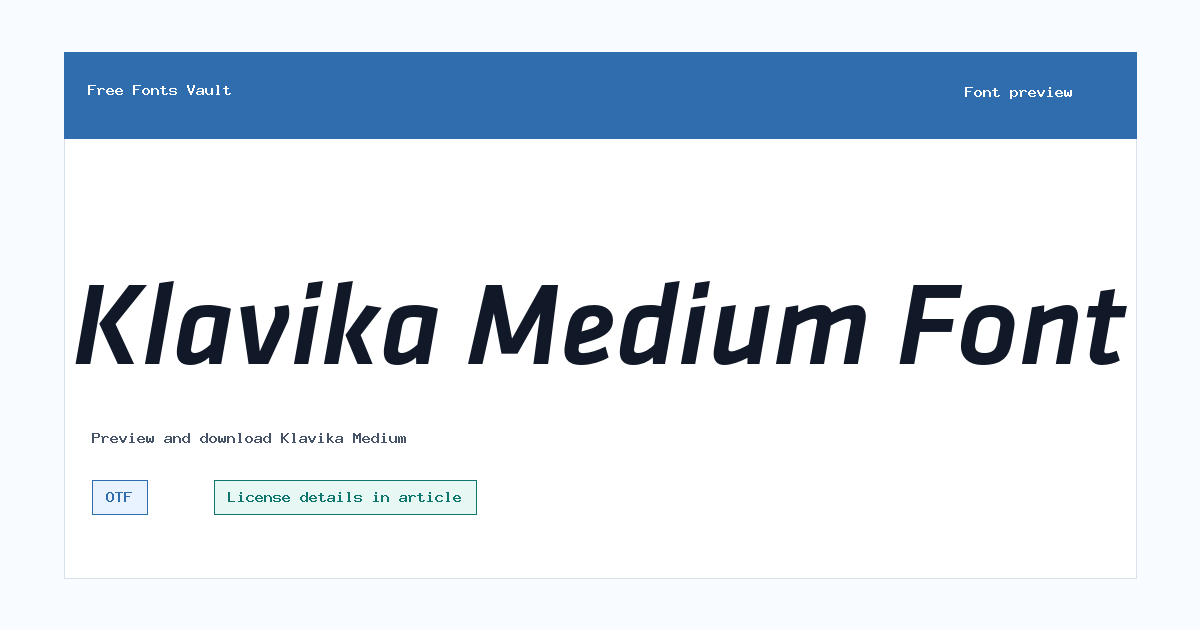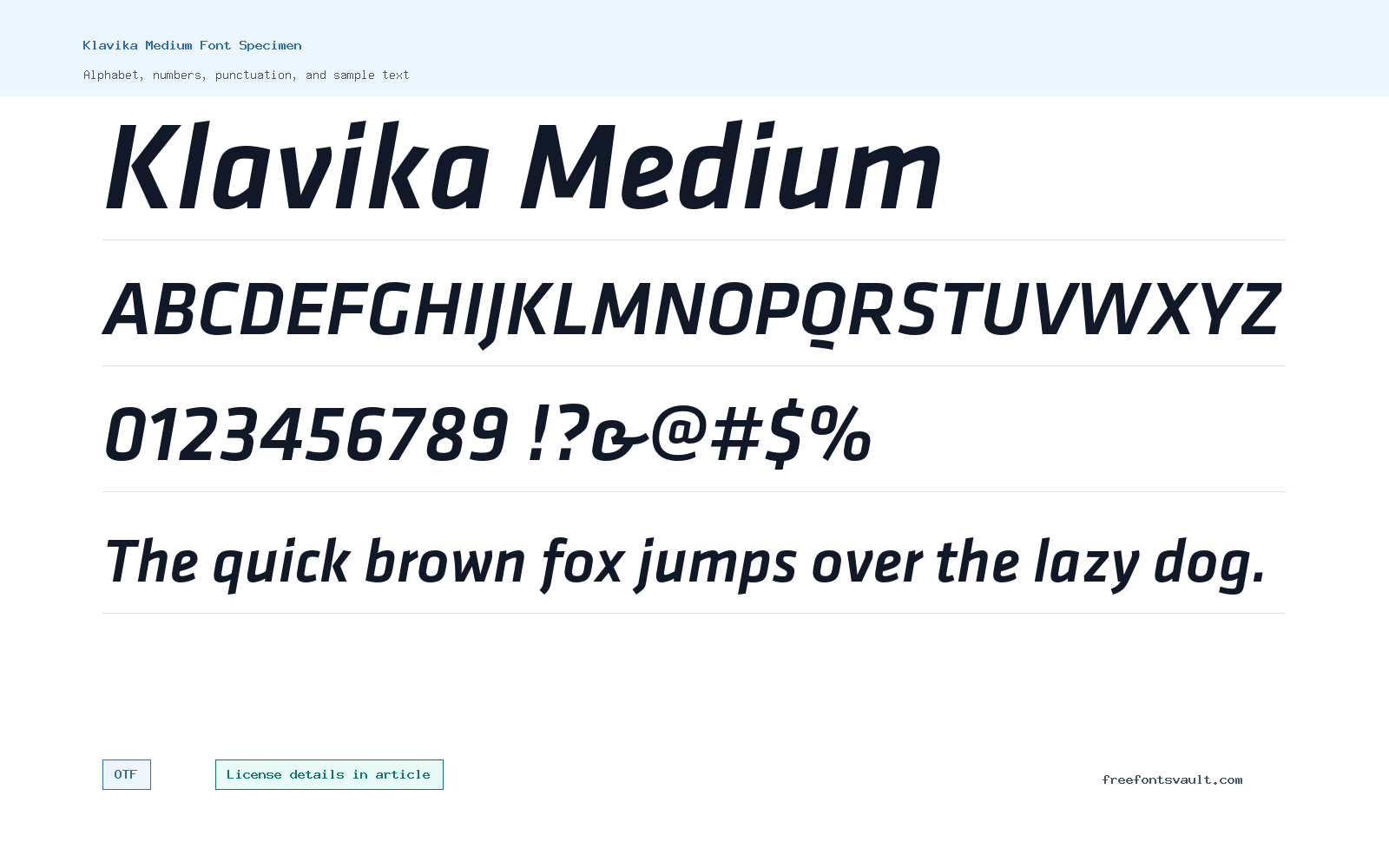
Klavika Medium
- Designer Process Type Foundry
- Foundry Process Type Foundry
Klavika Medium font.
Klavika Medium is listed here as a medium-weight italic OTF style, useful for short emphasis, labels, pull quotes, and clean design accents.
About Klavika Medium
The downloadable file is KlavikaMedium-Italic.otf, so this page should be read as an italic medium style rather than the upright regular cut. The 500 weight gives it more presence than a light italic while still staying calmer than a bold display font. That balance can work nicely for pull quotes, subheads, labels, editorial callouts, navigation accents, and short promotional lines.
Italic styles need more care than upright styles in long text. They can add motion and emphasis, but they also become tiring if used for entire paragraphs or dense interface screens. Preview your exact words, especially brand names, menu labels, and punctuation-heavy phrases. If your design needs long reading, use Klavika Medium Italic for accent moments and pair it with a readable upright companion font.
- Italic style with 500 medium-weight metadata
- Useful for emphasis, pull quotes, labels, and short headings
- Process Type Foundry is listed in the credit fields
- Better as an accent than as full paragraph text
- Pull quotes, editorial subheads, labels, and short callouts
- Navigation accents and interface mockups where italic emphasis helps
- Poster details, captions, and brand presentation tests
- Pairing with an upright sans-serif for readable body copy
- Medium-weight emphasis without a heavy bold look
Process Type Foundry is listed for Klavika Medium. No individual designer is confirmed in the saved fields, so the public copy should avoid inventing one.
Use Klavika Medium Italic for short emphasis. Test it at the final size, keep paragraphs in an upright companion font, and check whether the italic angle and spacing remain clear in your layout.
Is this an upright font?
No. The file is marked as italic, with a 500 medium weight.
What is Klavika Medium best for?
It is best for short emphasis such as labels, pull quotes, subheads, and design accents rather than long paragraphs.